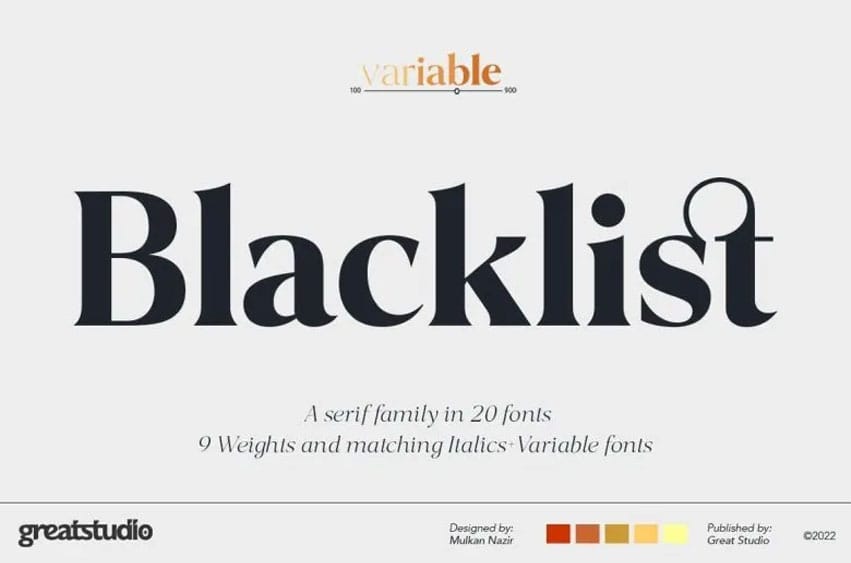
Blacklist Font is a high contrast font inspired in contemporary and transitional typography, with a flexible weight range from light to black and with natural curves and stems that grow and slope as the weight increases; the lighter weights are softer with less contrast but also have optical corrections for a smoother look.
In addition, it has very beautiful italics and supports many languages to an almost exaggerated extent. Blacklist excels in black and white, including headlines, titles, branding projects, logo design, packaging, magazines, headlines in magazines, advertising texts – both long and short.
Blacklist offers two styles: variable regular and Italic in order to allow designers experiment and come up with greater designs as they discover many colors and options in the process.